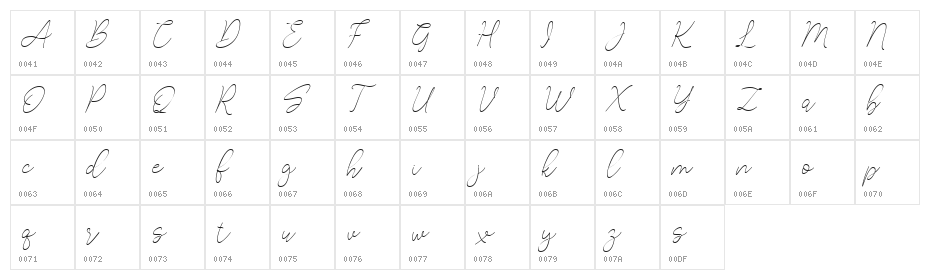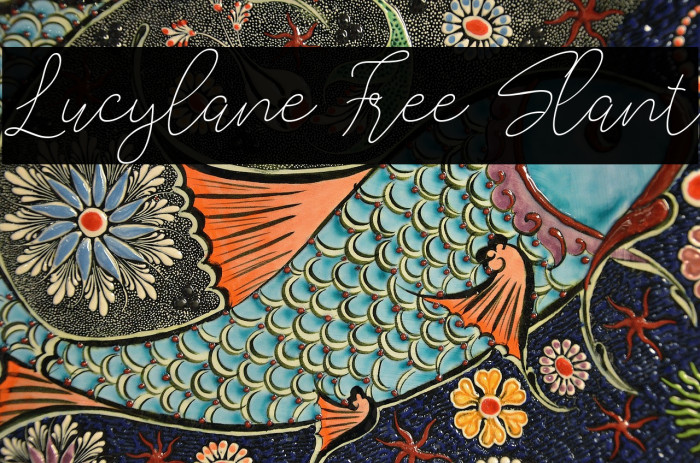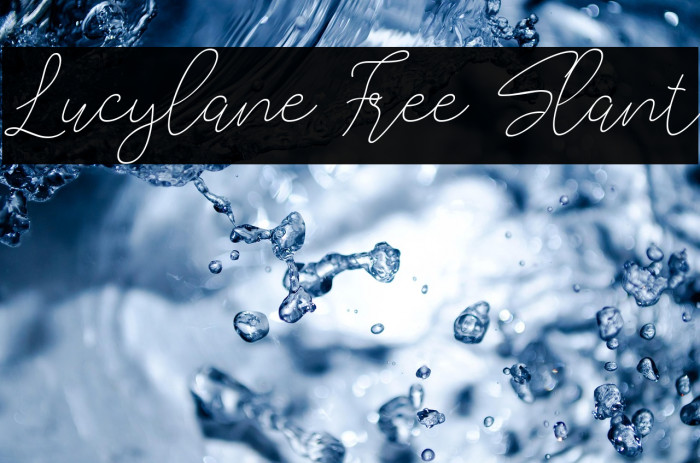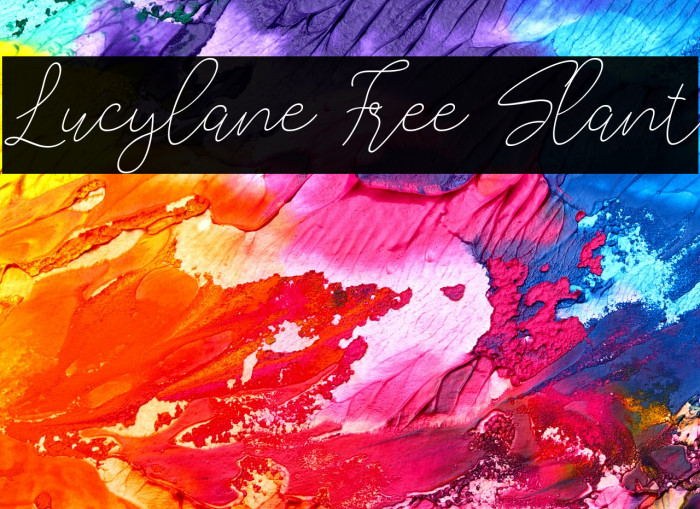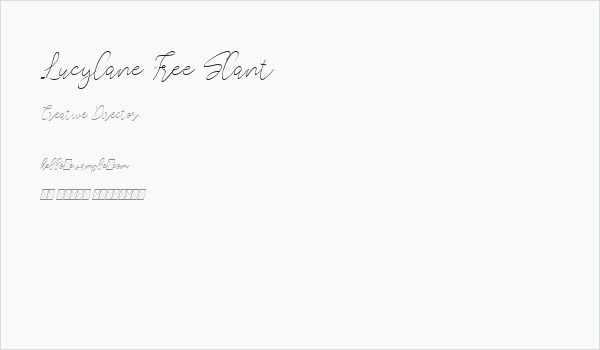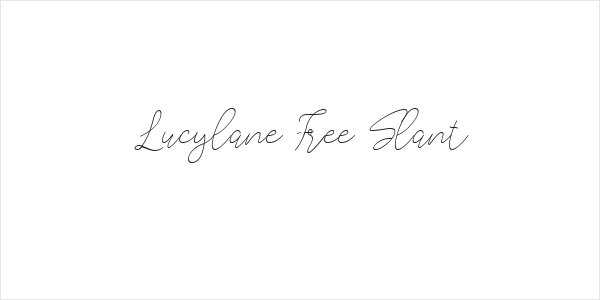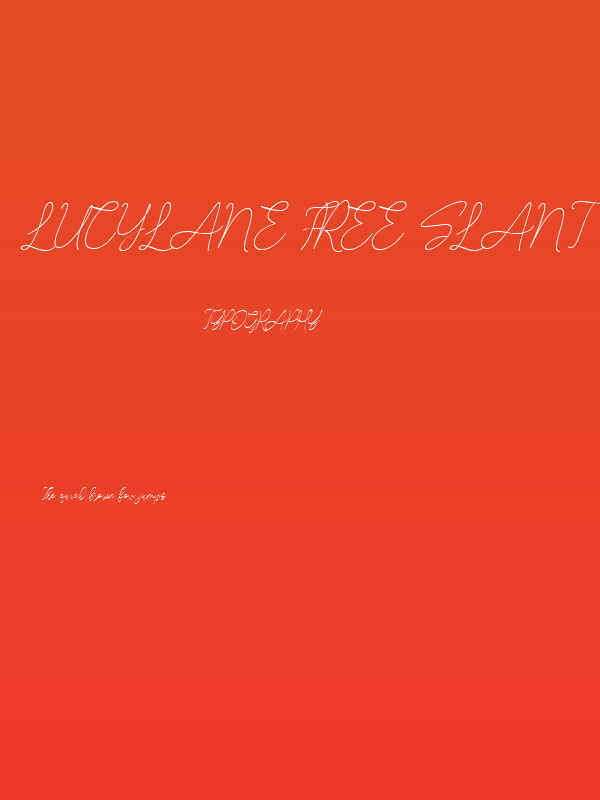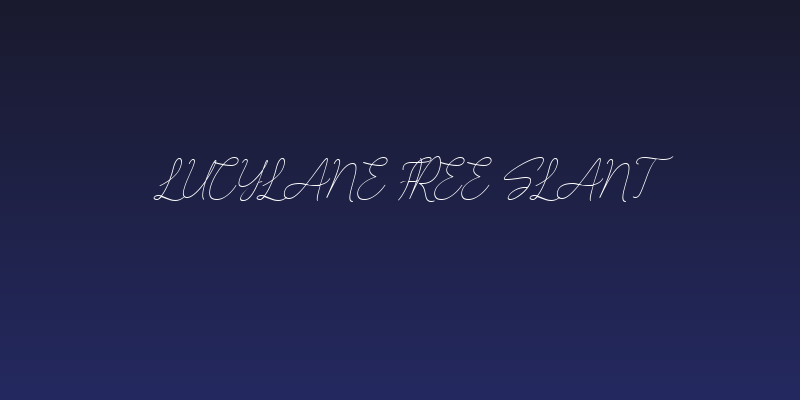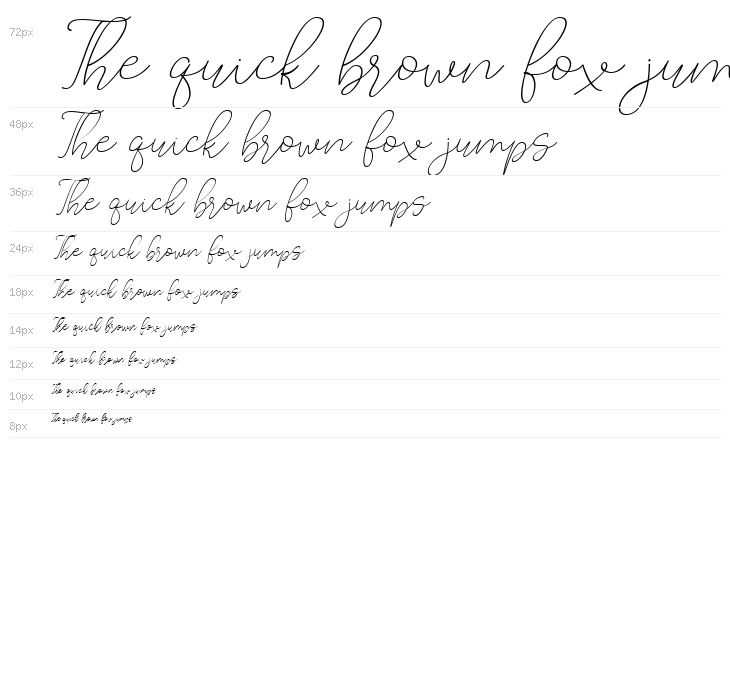
Lucylane Free Slant Font
Lucylane Free Slant Description
This font features an elegant and flowing script style, characterized by its slanted, cursive letterforms. The strokes are smooth and continuous, creating a sense of fluidity and grace. Each character is distinct yet harmoniously connected, making it ideal for conveying a personal and artistic touch. The uppercase letters are slightly larger and more pronounced, while the lowercase letters maintain a consistent and delicate appearance. The font's overall aesthetic is both sophisticated and approachable, suitable for a variety of creative applications.
| Overall Style | Elegant and Artistic |
| Use Case | Logos, Invitations, Personal Correspondence |
| Proposed Projects | Ideal for wedding invitations, greeting cards, branding, and elegant logo designs. |